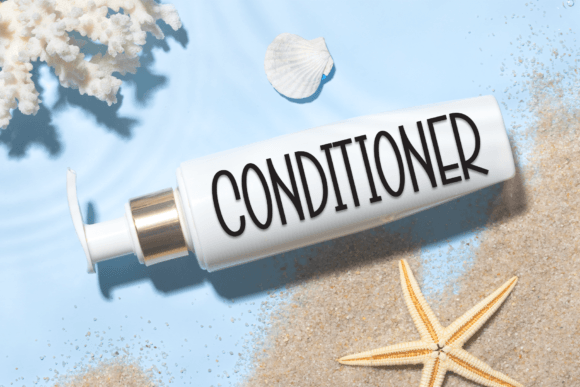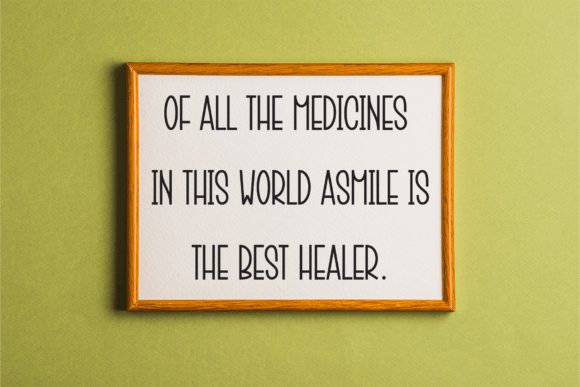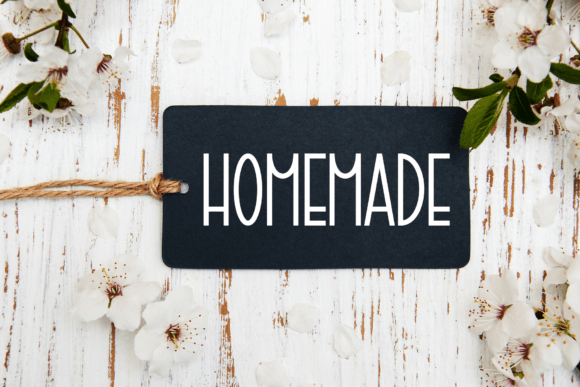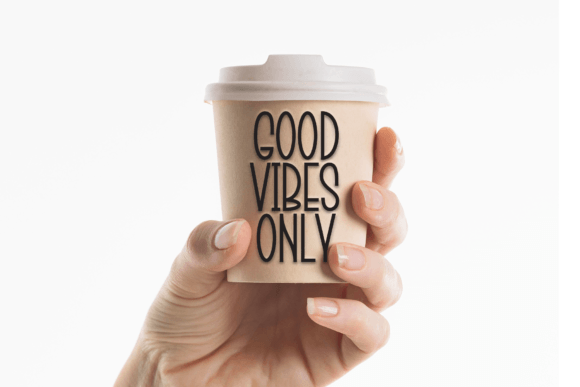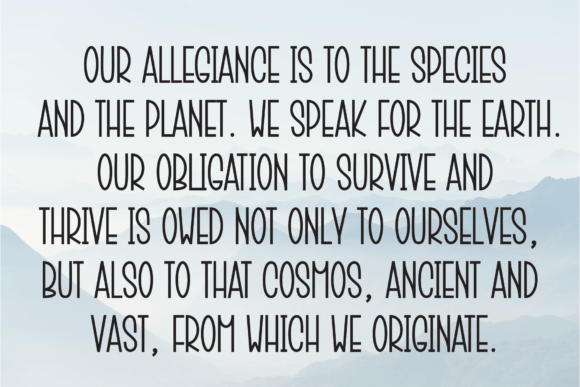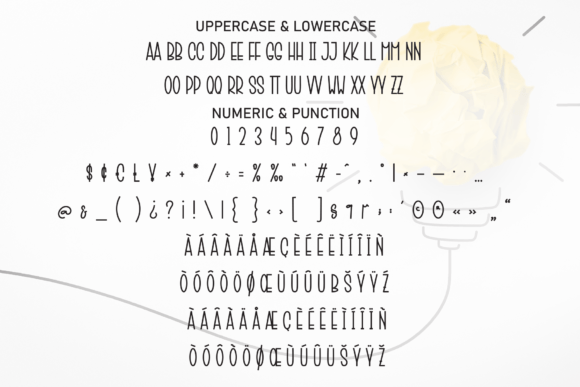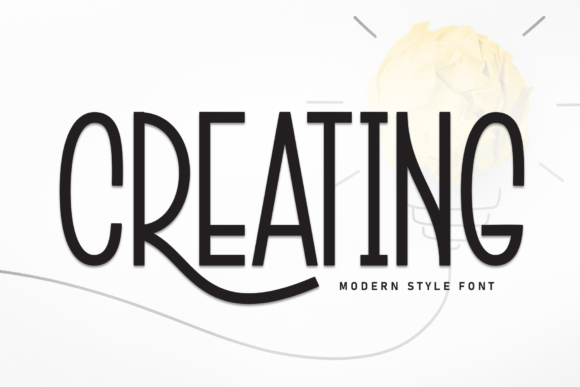
Creating Font: Elevate Your Designs with Elegance and Charm
Are you tired of using generic fonts that lack personality? Look no further than Creating Font, a stylish handwritten font that exudes elegance and charm. With its fluid strokes and natural flow, this captivating font is perfect for adding a personal touch to invitations, branding, or social media. In this article, we’ll dive into the world of Creating Font and explore how it can bring warmth and creativity to your designs.
The Story Behind Creating Font
Creating Font is a carefully crafted handwritten font that embodies the spirit of creativity and sophistication. Its unique design makes it an excellent choice for designers and crafters looking to add a touch of elegance to their work. Whether you’re creating wedding invitations, branding materials, or social media graphics, Creating Font is the perfect companion to help you stand out from the crowd.
Key Features of Creating Font
- Fluid Strokes: Creating Font boasts fluid strokes that give it a natural, handwritten feel. This feature makes it perfect for designs that require a personal touch.
- Elegant and Charming: The font’s elegant and charming appearance makes it suitable for a wide range of design applications, from formal events to social media graphics.
- Sophisticated Look: Creating Font’s sophisticated look is sure to elevate your designs and make them more captivating.
- Warmth and Creativity: This font brings a sense of warmth and creativity to any design, making it perfect for designers and crafters who want to add a personal touch to their work.
Using Creating Font in Your Designs
Creating Font is an incredibly versatile font that can be used in a variety of design applications. Here are a few ideas to get you started:
- Wedding Invitations: Add a touch of elegance to your wedding invitations with Creating Font. Its fluid strokes and natural flow make it perfect for formal events.
- Branding Materials: Use Creating Font to create unique and captivating branding materials, such as business cards, brochures, and letterheads.
- Social Media Graphics: Elevate your social media graphics with Creating Font. Its sophisticated look and charming appearance make it perfect for creating engaging and shareable content.
Tips for Getting the Most Out of Creating Font
To get the most out of Creating Font, here are a few tips to keep in mind:
- Experiment with Font Sizes: Creating Font looks great in a variety of font sizes. Experiment with different sizes to find the one that works best for your design.
- Pair with Other Fonts: Don’t be afraid to pair Creating Font with other fonts to create a unique and captivating design.
- Use in Combination with Images: Creating Font looks great in combination with images. Use it to add a touch of elegance to your designs and make them more engaging.
Creating Font is a stylish handwritten font that exudes elegance and charm. Its fluid strokes and natural flow create a captivating, sophisticated look that’s perfect for adding a personal touch to invitations, branding, or social media. With its versatility and unique design, Creating Font is sure to become a staple in any designer’s toolkit. So why wait? Download Creating Font today and start elevating your designs with elegance and charm.
- What is Creating Font? Creating Font is a stylish handwritten font that exudes elegance and charm.
- What design applications is Creating Font suitable for? Creating Font is suitable for a wide range of design applications, including wedding invitations, branding materials, and social media graphics.